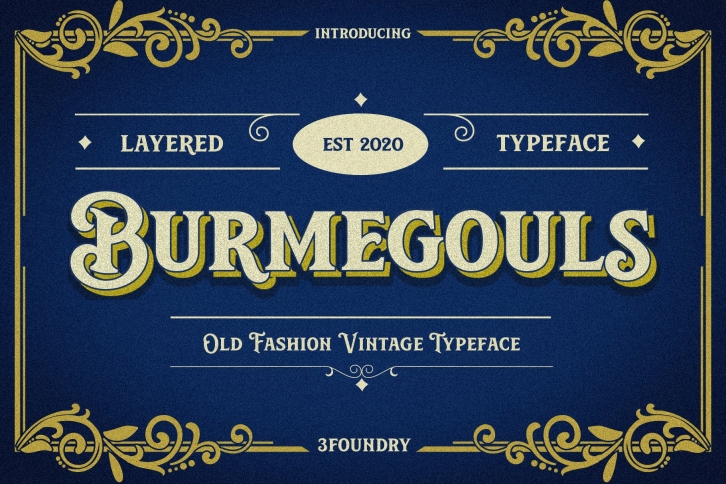
Hello everyone, on this occasion we would like to introduce our newest product, which we named "Burmegouls". back to vintage and classic styles. will really help your design look more classic and special. get it immediately at an affordable price.